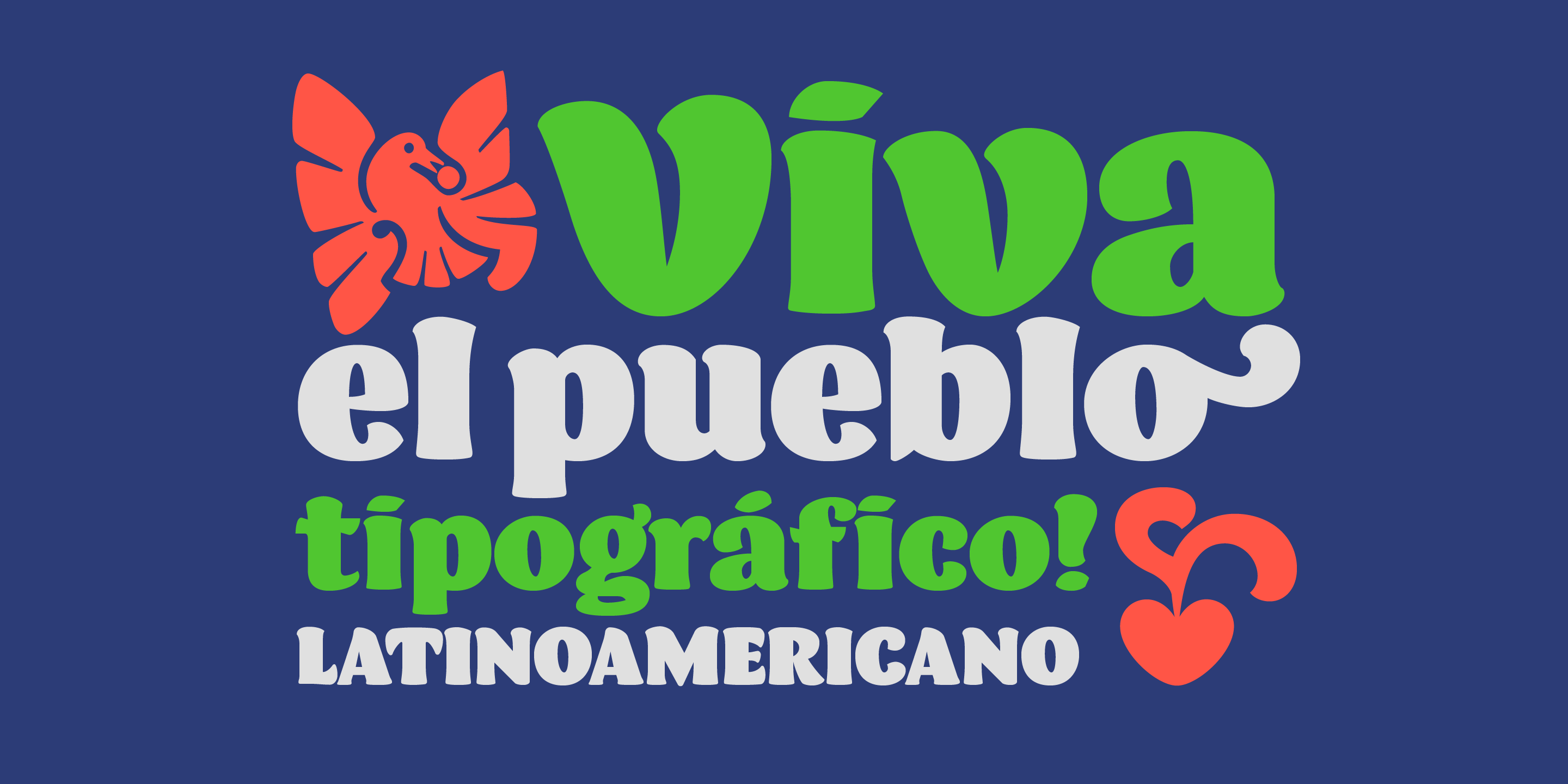
Barricada Font is perfect for protest movement graphics, social justice organization branding, activist campaign materials, grassroots political signage, community organizing communications, revolutionary art installations, civil rights memorial designs, and resistance movement merchandise.
Barricada Font is exciting because it channels the uncompromising spirit of social resistance with its boldly defiant letterforms that seem to rise from the streets like banners of change and echo with the voices of those who refuse to accept injustice. The typeface embodies the courage of grassroots movements and the transformative power of collective action, creating an immediate sense of revolutionary determination and social justice that resonates with those who fight for equality, human rights, and systematic change.
Barricada Font family includes Light, Regular, Medium, Bold, and Revolution variants, complemented by protest-inspired graphic elements and movement decorative features, offering designers powerful typography tools for creating communications that amplify marginalized voices and support the ongoing struggle for social justice and human dignity.
Whether you're developing a social justice organization's brand identity, designing activist campaign materials, or creating community organizing content, Barricada Font Free Download provides unmatched movement authenticity and revolutionary appeal. This fearless typeface perfectly captures the essence of grassroots activism while maintaining contemporary functionality for modern social justice communications and community organizing efforts. The font's defiant character variations and resistance rhythm make it particularly effective for organizations that emphasize social change, community empowerment, and the kind of unwavering commitment to justice that transforms individual grievances into collective movements for positive social transformation. Social justice advocates consistently select Barricada Font when projects require typography that communicates solidarity, determination, and the kind of revolutionary spirit that challenges oppressive systems and inspires ordinary people to become agents of change, making it indispensable for activist movement branding, social justice marketing, and any application where bold typography can honor the magnificent tradition of peaceful resistance and remind society that progress requires the courage of those who stand up, speak out, and never stop fighting for the fundamental human rights and dignity that should belong to every person regardless of their background, identity, or circumstances.